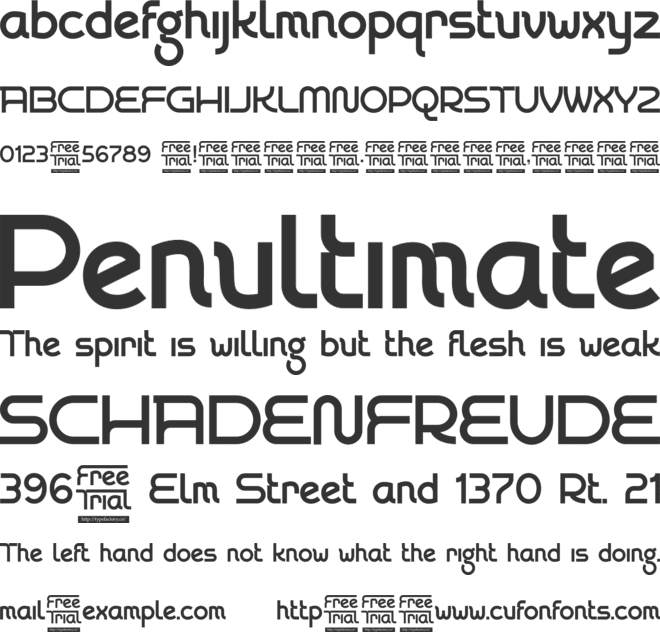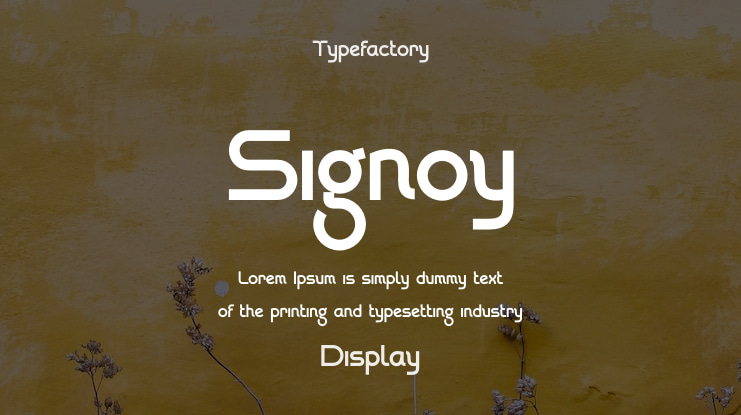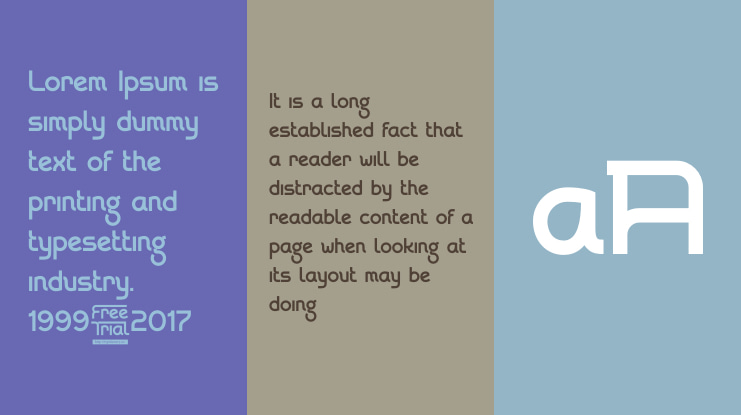
Signoy Font
Signoy is a bold, playful, and contemporary Modern Geometric Sans Serif typeface, specially designed for impact in branding and display use. Characterized by its thick, rounded strokes and groovy, connected letterforms, Signoy strikes a perfect balance between 1970s nostalgia and sleek modern design. Drawing inspiration from vintage signage and bold logos, this font features a unique, flowing rhythm and distinctive alternates that let you customize your headlines and logotypes. Perfect for modern brands, digital media, attention-grabbing posters, and creative branding projects, Signoy adds a fun, dynamic, and unique flair to your visuals. Its distinctive character and versatility make it ideal for any project that needs a memorable, stand-out look. Let Signoy transform your designs with its energetic and unique artistic appeal, making every project look proudly presented.